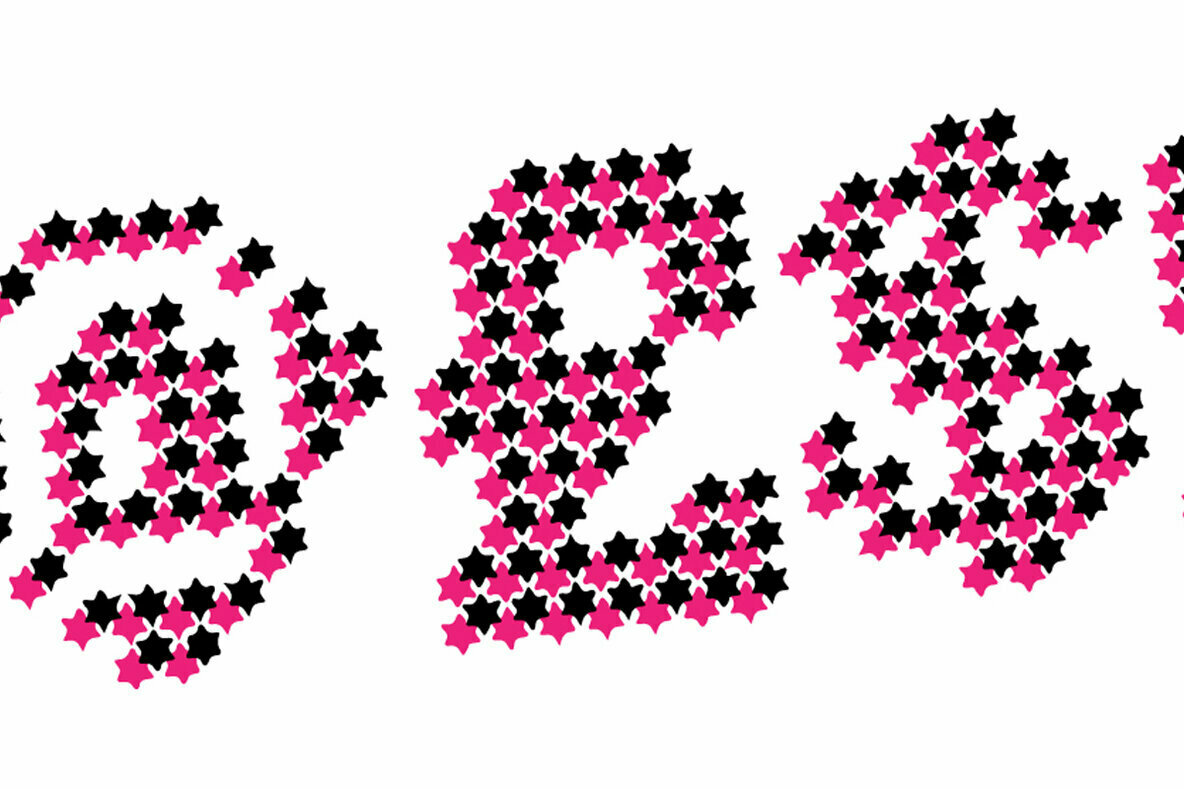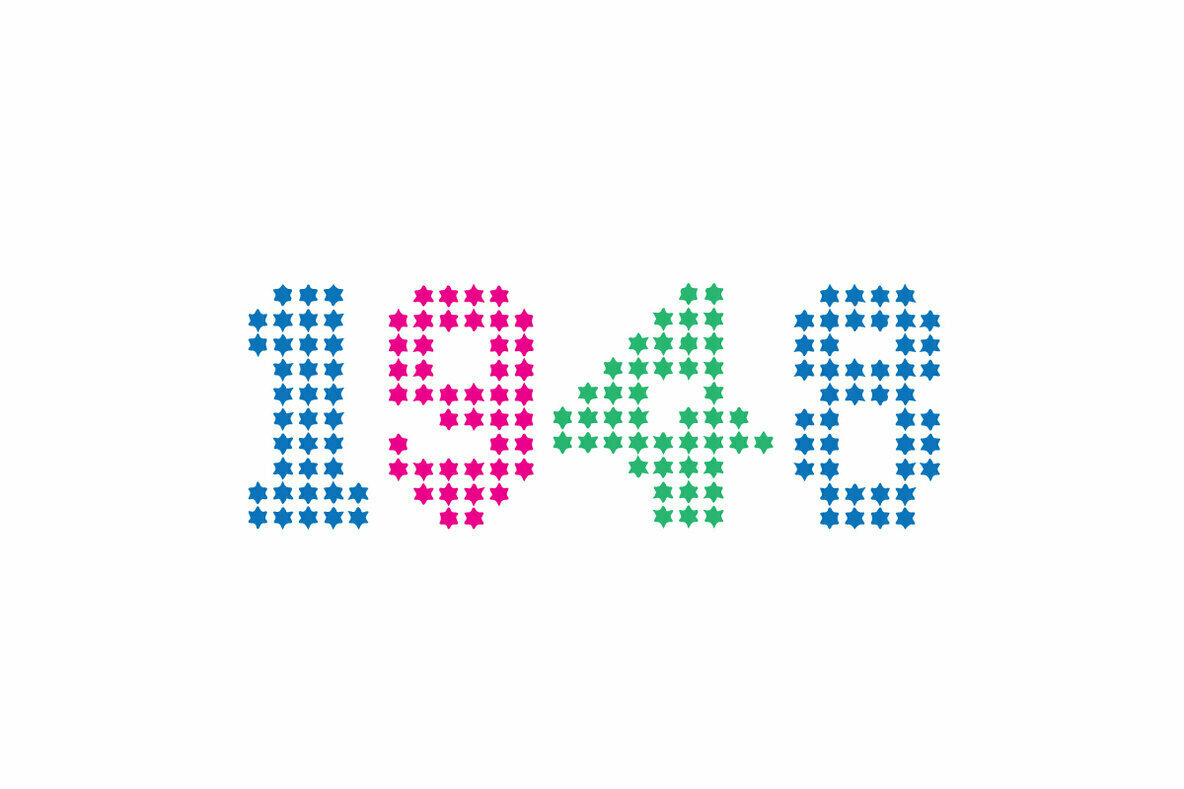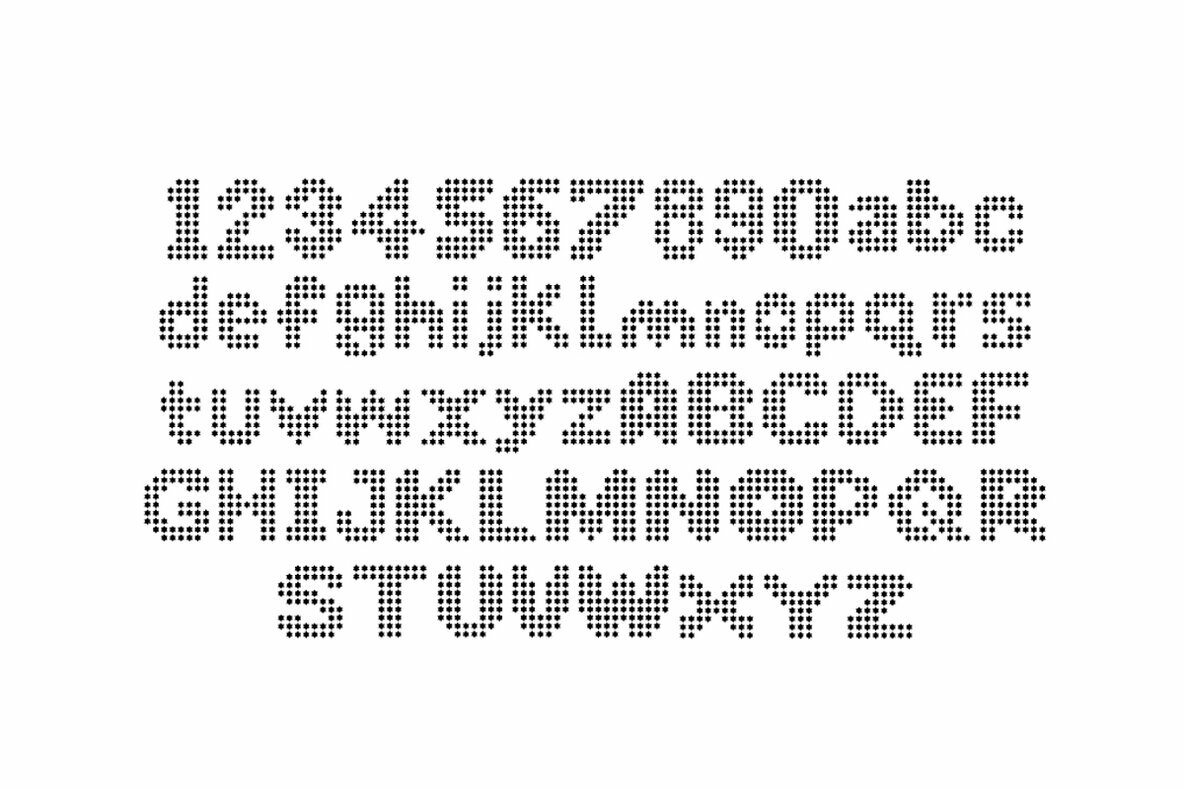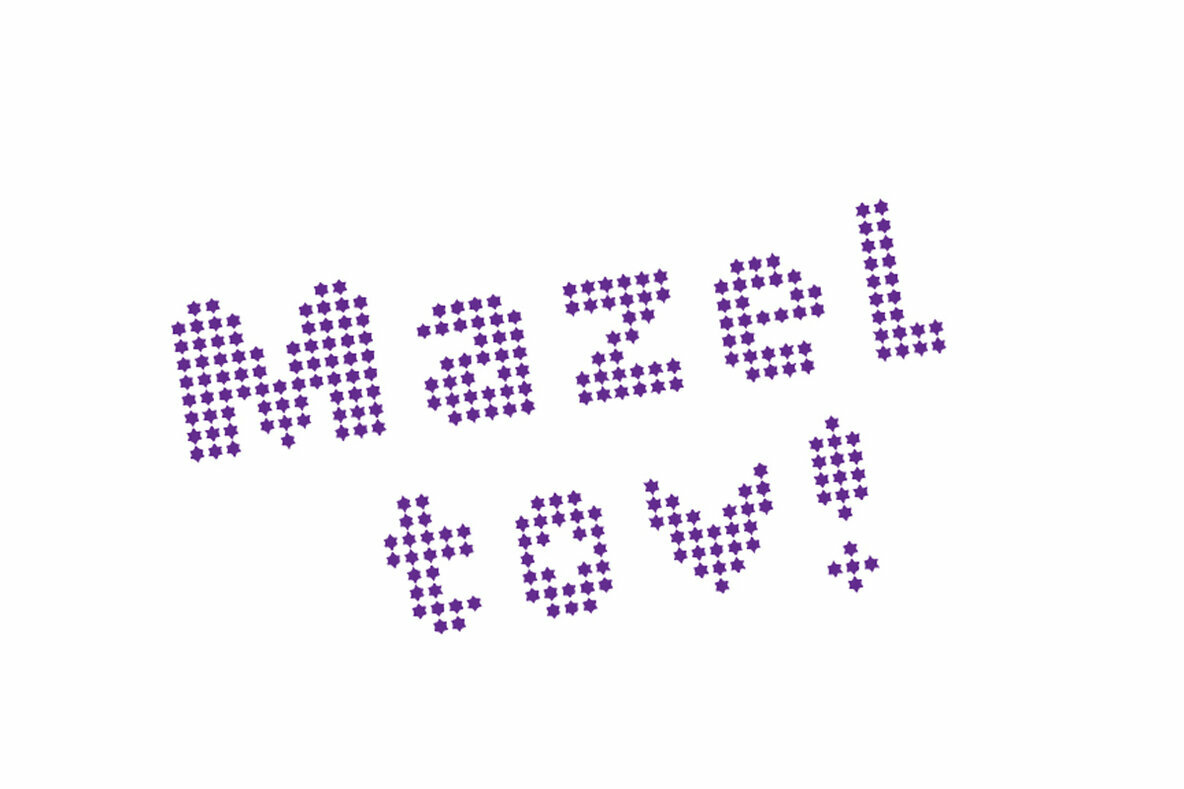
King Davids Font
King David’s Font is a fun font with upper and lowercase letters. Its matrix-style utilizes the Star of David symbol, making it a great font for all Jewish-themed festivals, crafting, stationery or promotions.